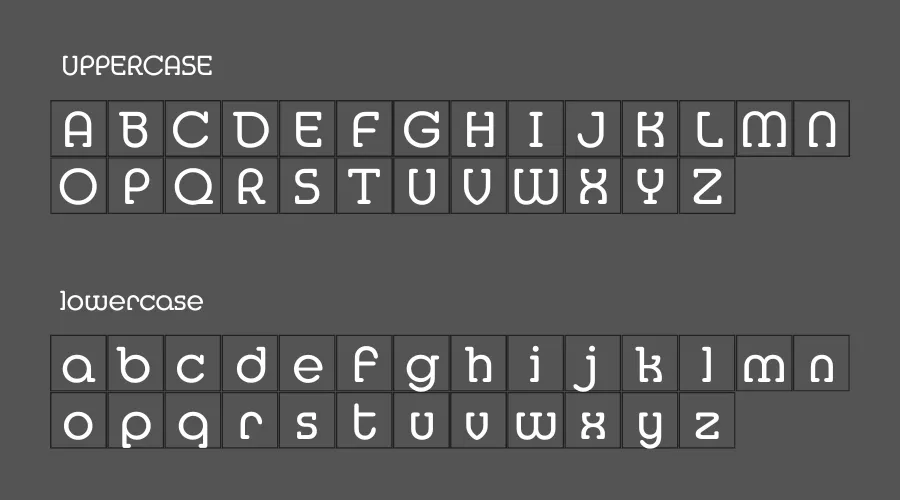
About Desiree Becker Font
In this article, we will introduce to you a very elegant and attractive project. This font was invented by a famous graphic designer known as name of Desiree Becker. He has already created many other popular textures in the font world. It is suitable for both CSS and adobe photoshops.
With its bold and modern look, this typeface has become a popular choice for many professional designers. You may utilize its online generator tool, In which you may convert all your simple textures into stylish and trendy shapes.